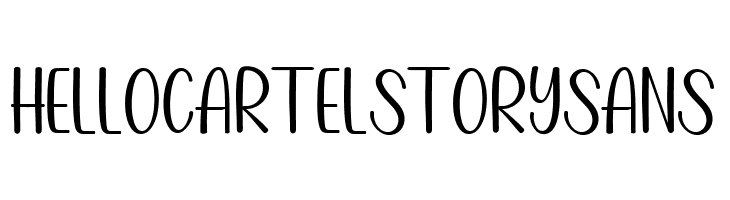
A playful, hand-drawn font with tall, narrow letterforms and a whimsical style.
A playful, casual handwritten font with tall, narrow letterforms and consistent strokes.
A playful handwritten font with tall, narrow characters and rounded edges.
A lively, handwritten font with tall, narrow letterforms and playful curves.
A playful, handwritten font with tall, narrow letters and dynamic strokes.
A playful, hand-drawn font with tall, narrow characters and a whimsical style.
A playful, hand-drawn font with tall, narrow letters and a whimsical style.
A playful, whimsical font with tall, narrow letters and consistent stroke width.
A playful, handwritten font with tall, narrow letters and tight spacing.
A playful, handwritten font with tall, narrow letters and smooth strokes.